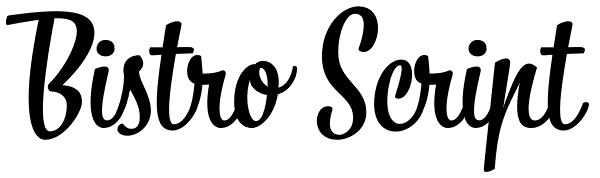
BistroScript
BistroScript is a contemporary calligraphic script inspired by promotional art in the 1960s. Thanks to OpenType features, a variety of ligatures and alternative glyphs allow the user to create more authentic and varied connections between letters...